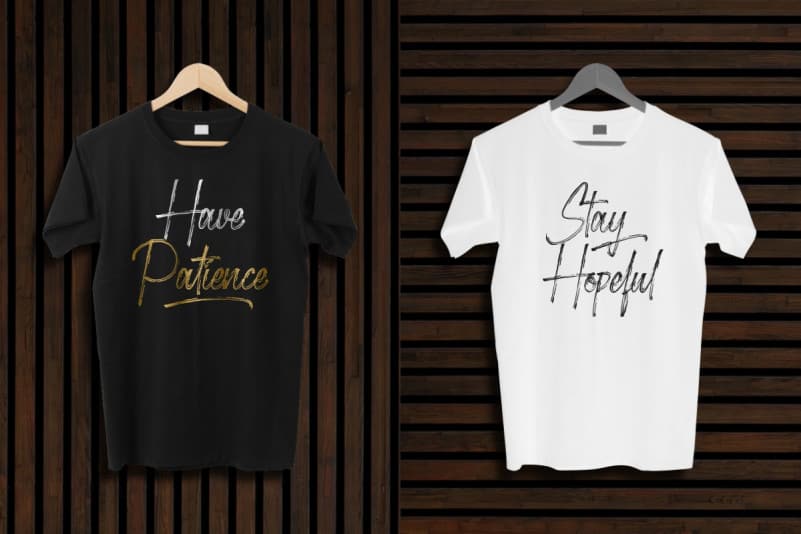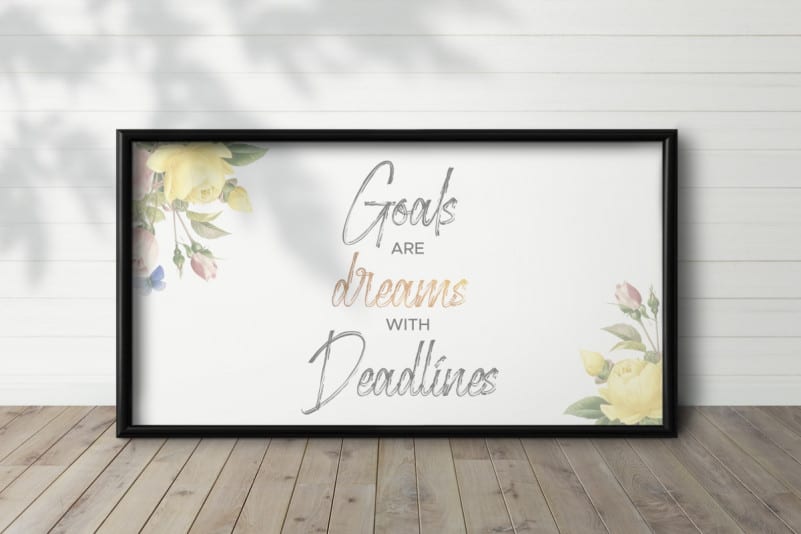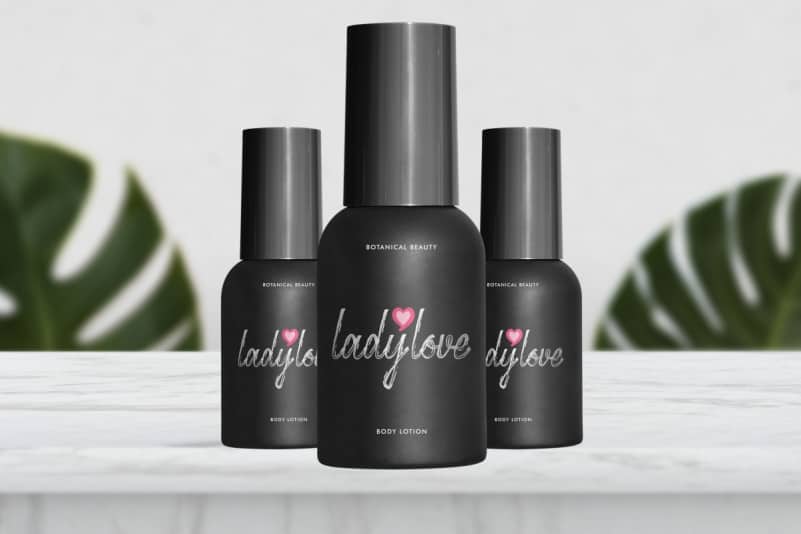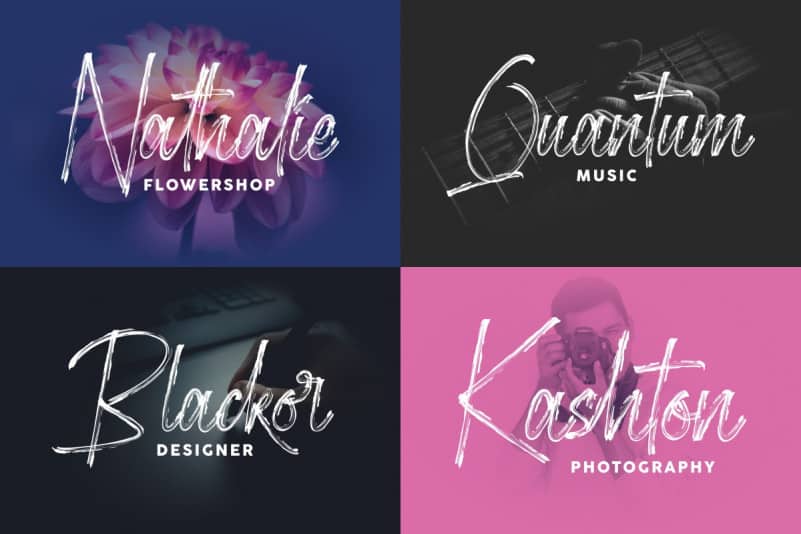
Stockholder Brush Font
Stockholder Brush Font will be great for any projects (require extended license) including : branding, logo, stationery, business card, signage, flyer, brochure etc.
The theme style of the Stockholder is unique, mysterious, dark, horror, movie, sporty, gamer, motorcycle brush style. The font will be match for this typeface: events, artist, musician, cafe, coffee, promotion, etc